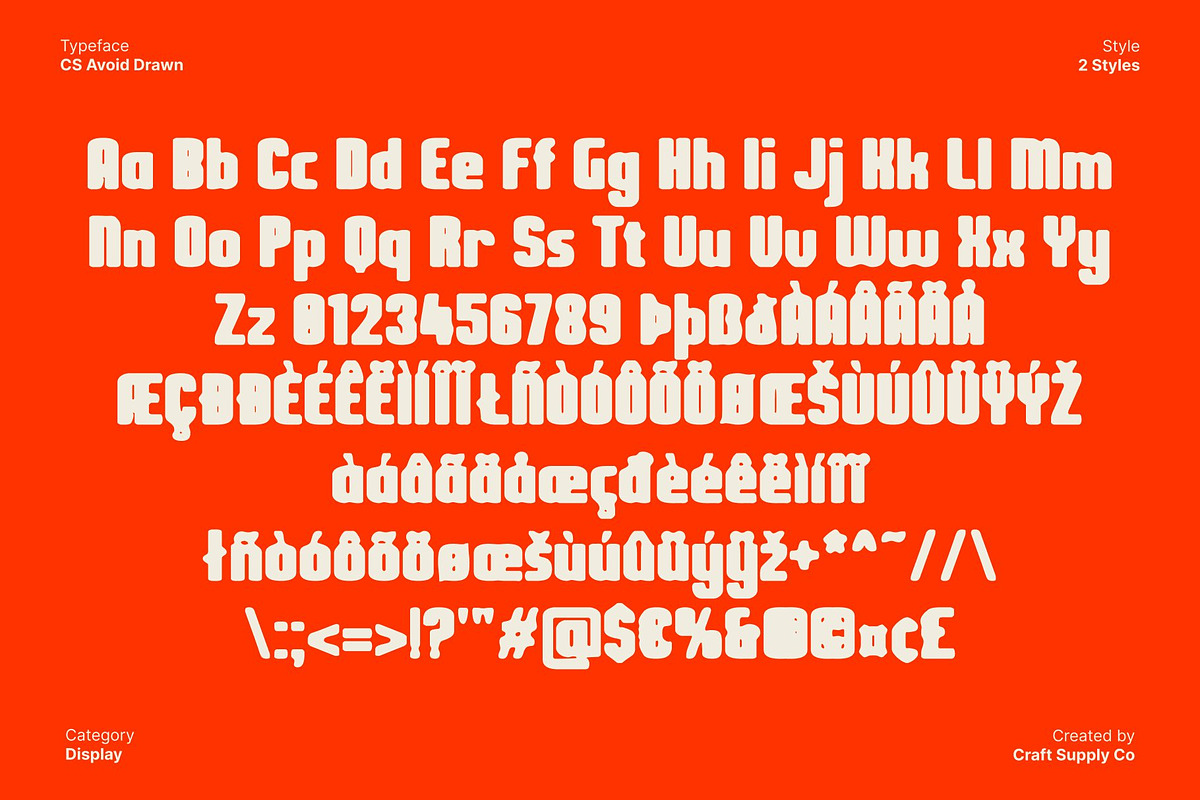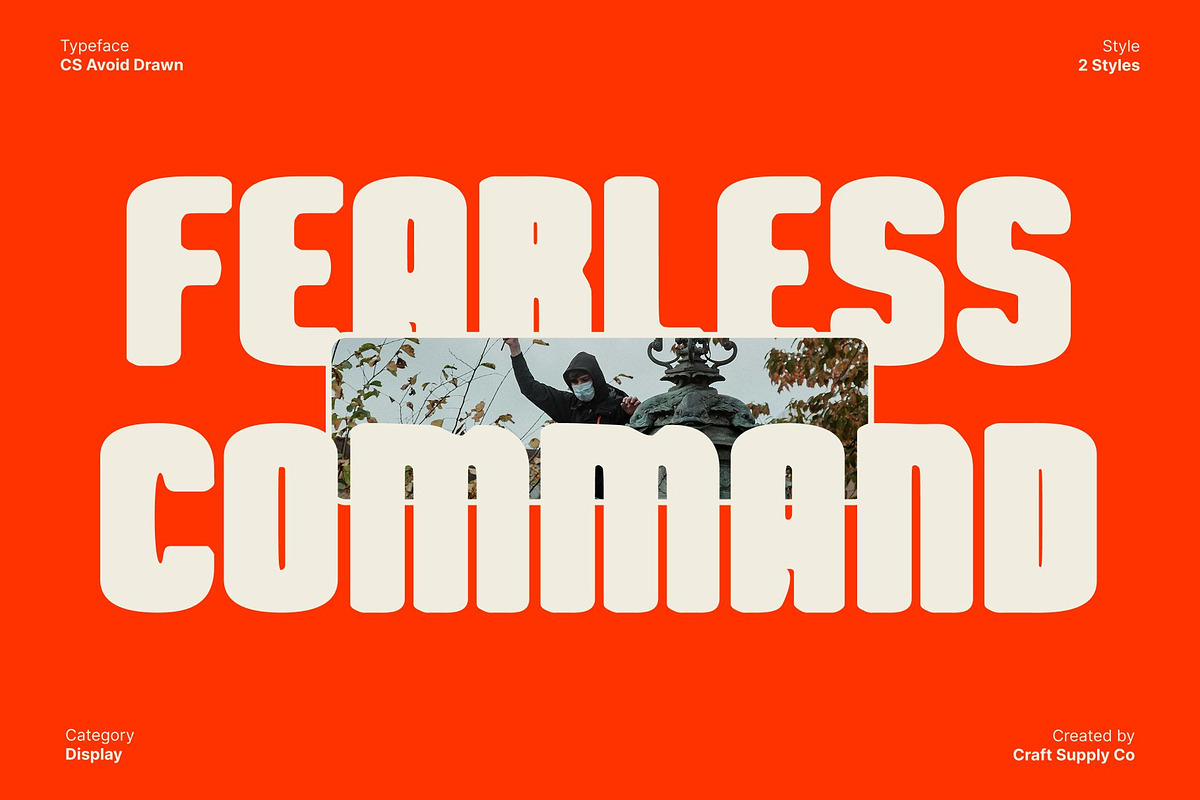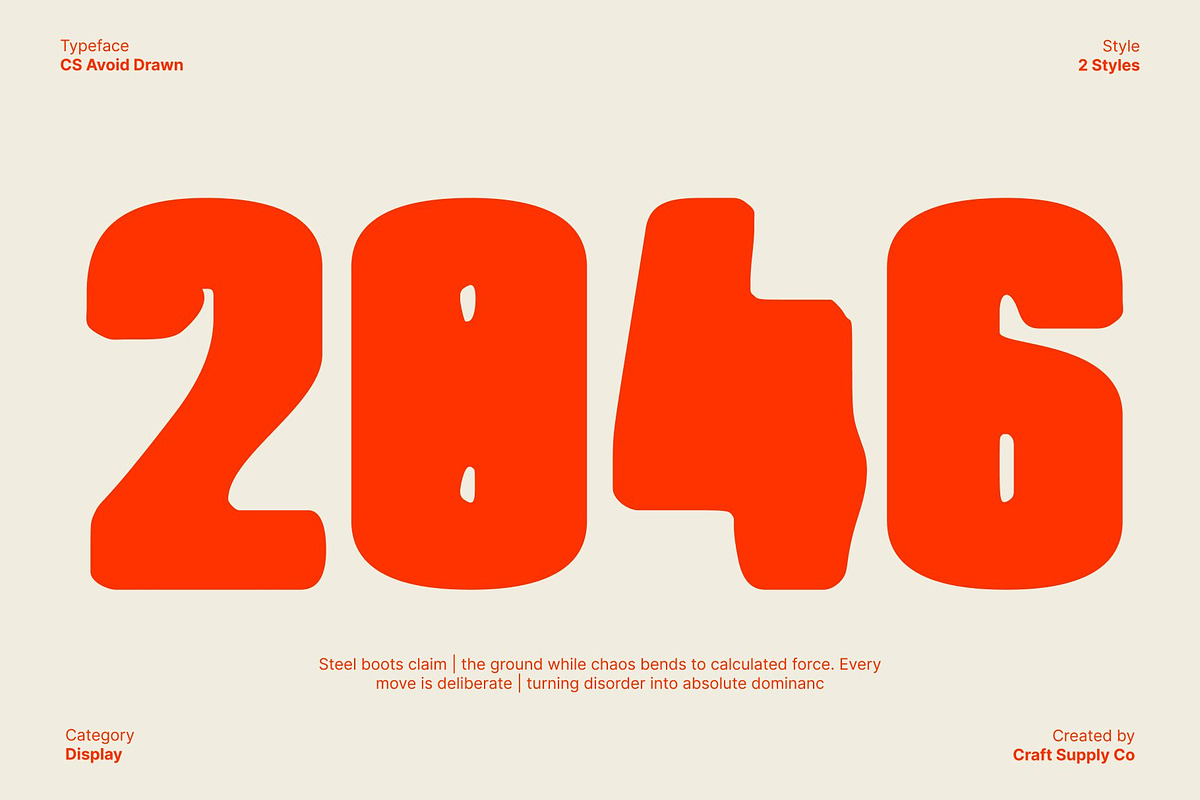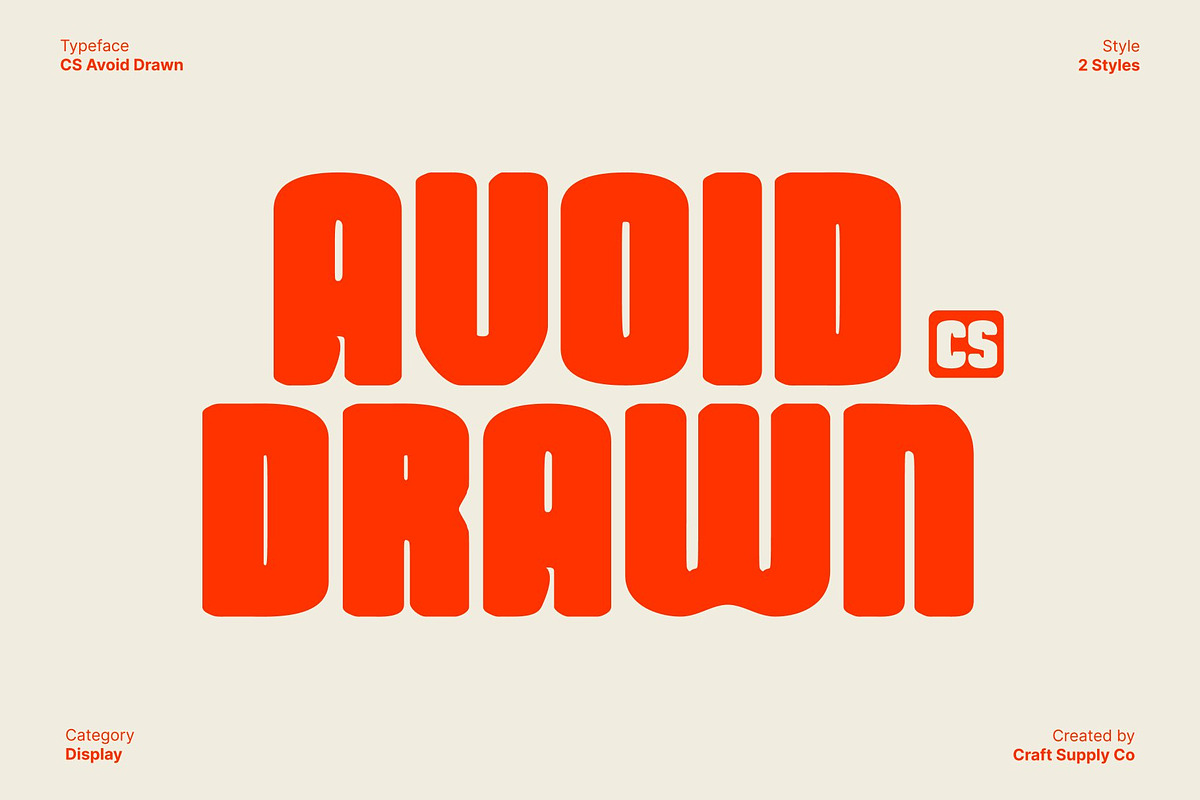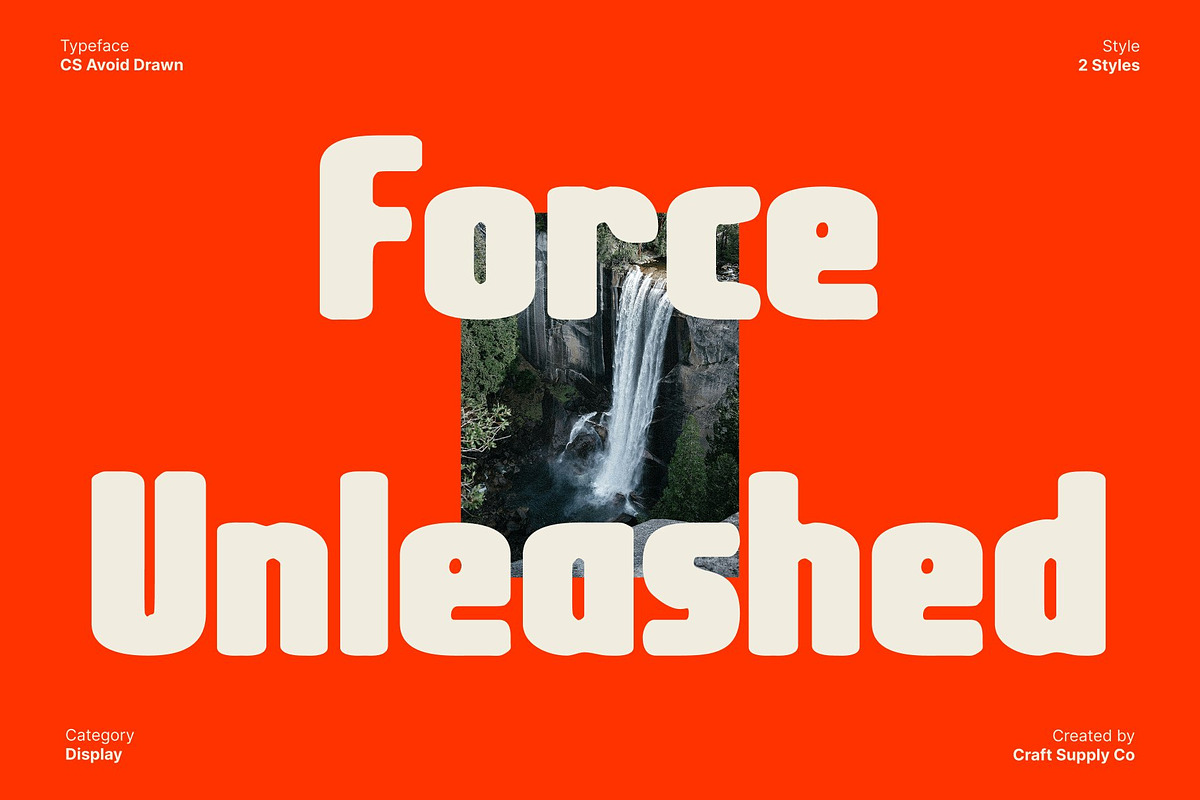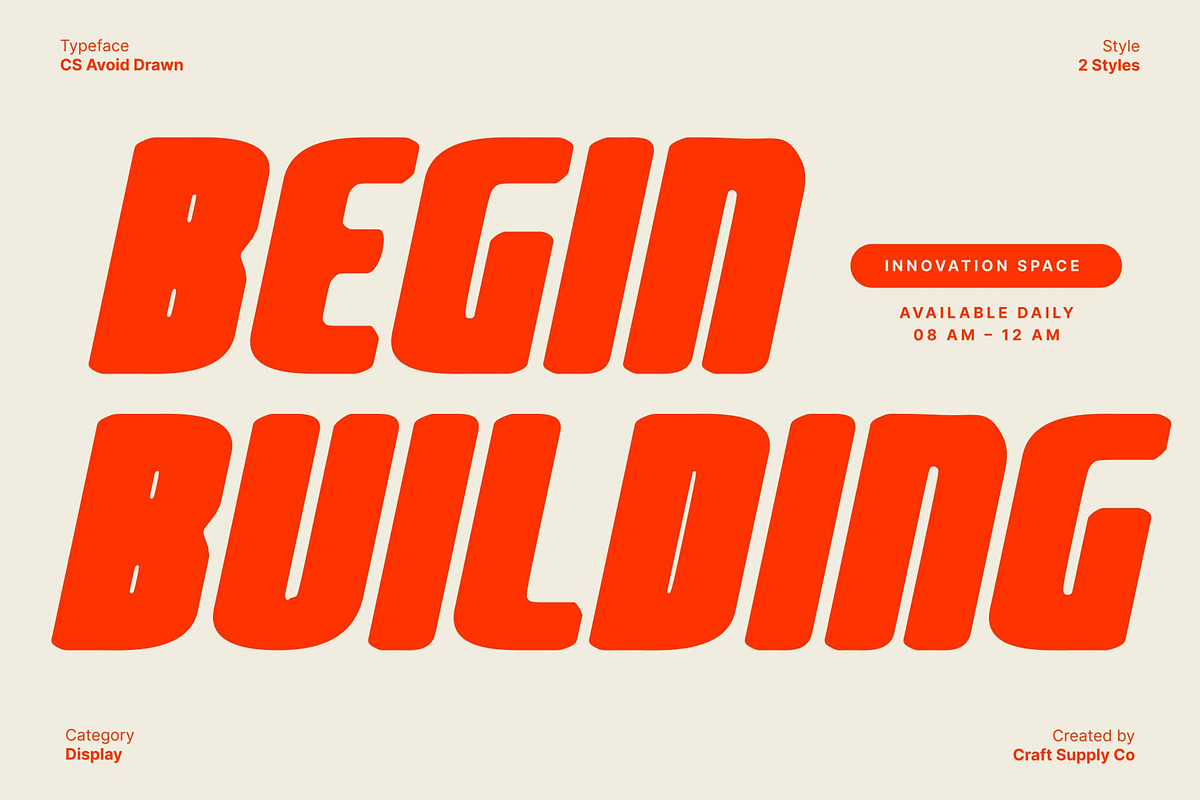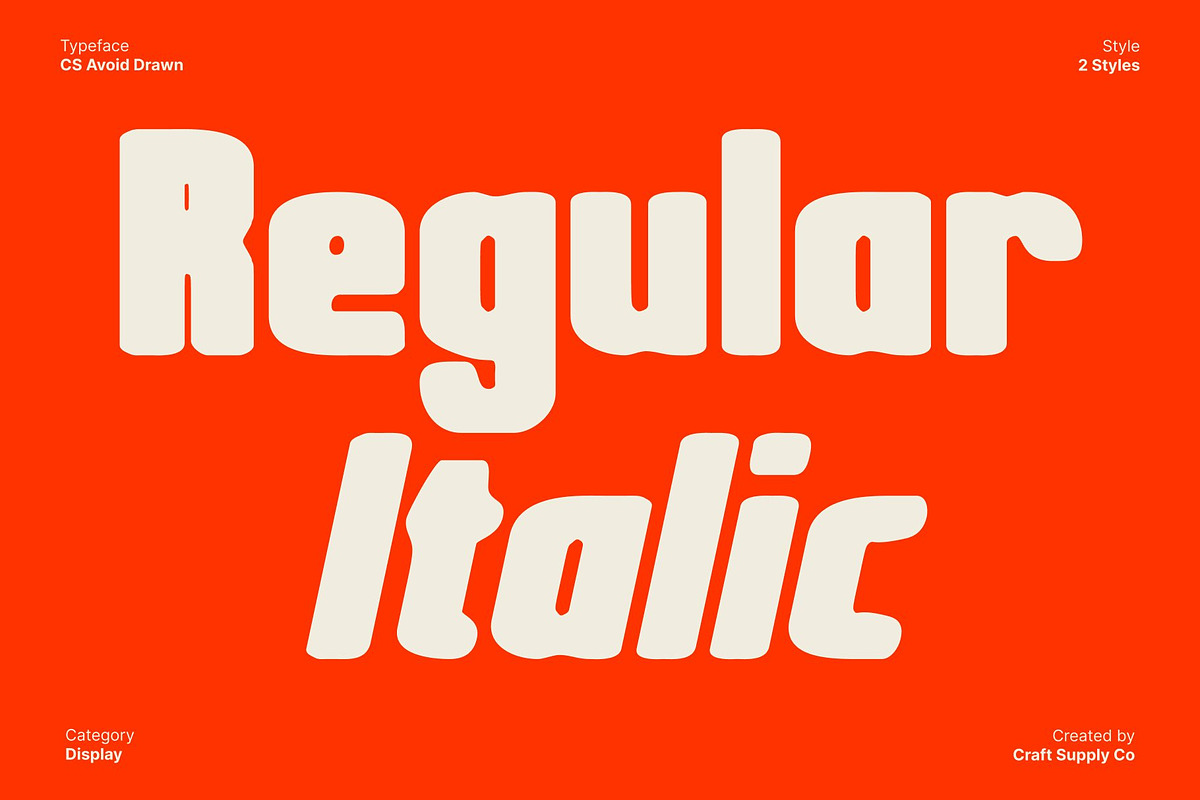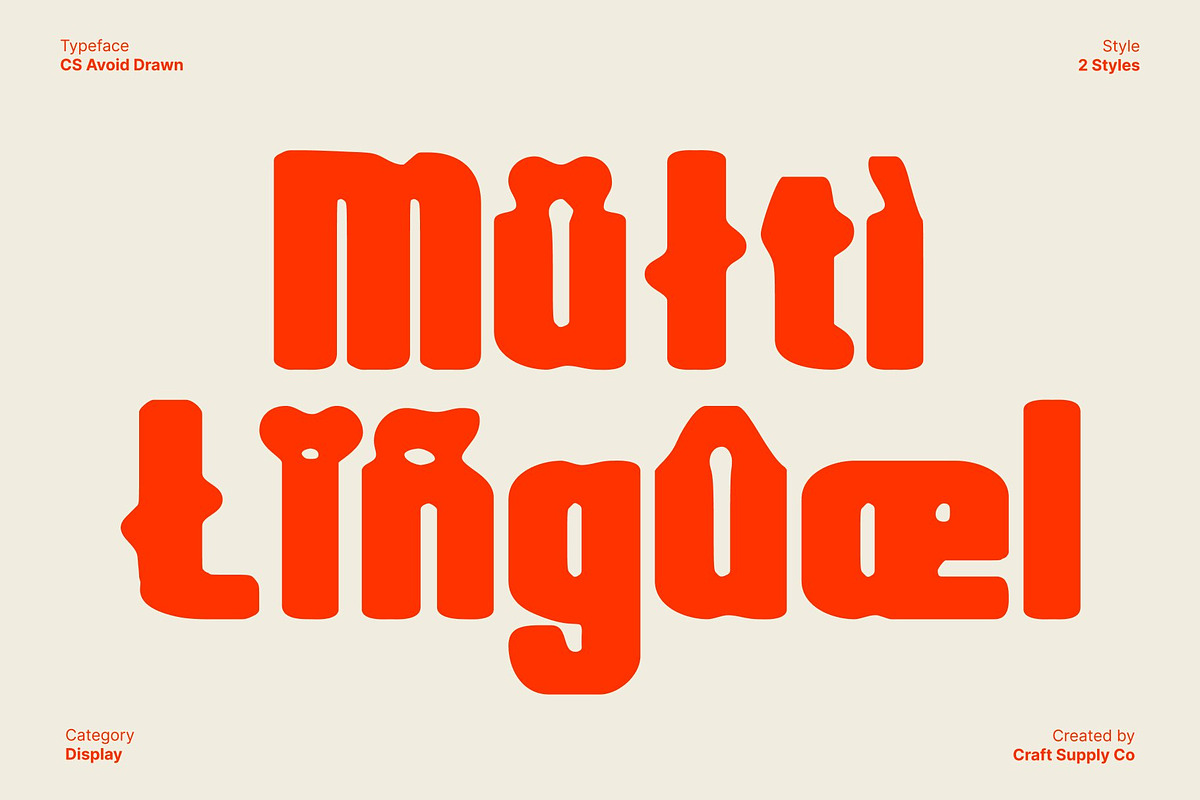
CS Avoid Drawn
CS Avoid Drawn – Condensed Sans Serif Font: Maximum Impact, Minimal Space
Condensed Strength with a Hand-Drawn Edge This is a modern condensed sans serif font designed to deliver strong visual impact in limited space. Its narrow proportions and solid structure communicate confidence, precision, and efficiency, while the drawn texture adds a subtle handcrafted character. This combination creates letterforms that feel controlled and powerful, yet slightly organic and expressive.
Powerful Presence for Tight Layouts Built for space-conscious design, this font excels in headlines, banners, posters, and compact layouts that demand clarity without losing boldness. The condensed construction allows more characters to fit comfortably into narrow areas, making it ideal for editorial titles, packaging, and branding systems that rely on strong, direct messaging.
Clean Geometry with Expressive Readability The font balances clean geometric lines with assertive weight, resulting in a modern aesthetic that feels sharp and confident. The hand-drawn details soften its rigidity, adding warmth and personality without compromising legibility. Its consistent rhythm ensures readability from a distance while keeping the overall look sleek and professional.
Ideal for Modern Branding and Display Design This font is perfectly suited for branding, advertising, posters, and digital visuals that require a bold, contemporary voice. Its compact form, combined with an artistic drawn texture, makes it a strong choice for modern, urban, and creative identities that value efficiency, strength, and distinctive character.
- CS Avoid Drawn Regular
- CS Avoid Drawn Italic